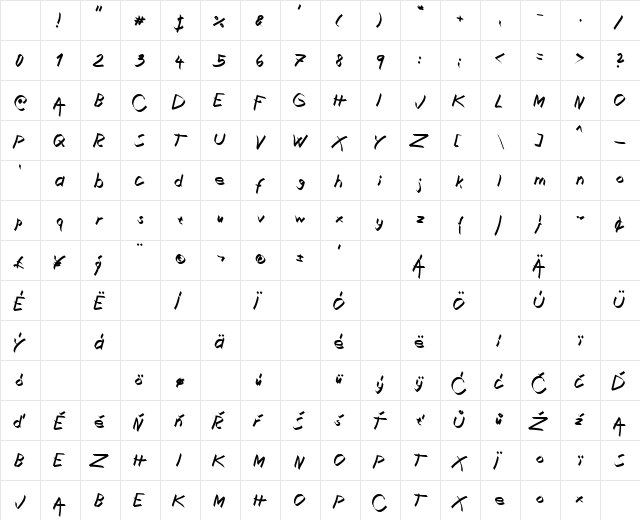
Xaligraphy is a composed and adaptable typeface that performs quietly and consistently across a wide range of design contexts. The slanted form adds forward momentum and visual energy.
Pro Tip: Use Xaligraphy for emphasis, pull quotes, and subheadings where its slanted energy can add rhythm to the layout.